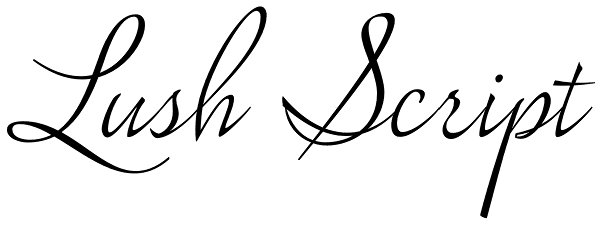
Lush Script
Lush was a formal script until it had a few too many drinks and, as a result, loosened up a little bit. Harkening back to the handlettering of the 40s and 50s, Lush has evolved into a casual, but well-dressed script that maintains a rather...